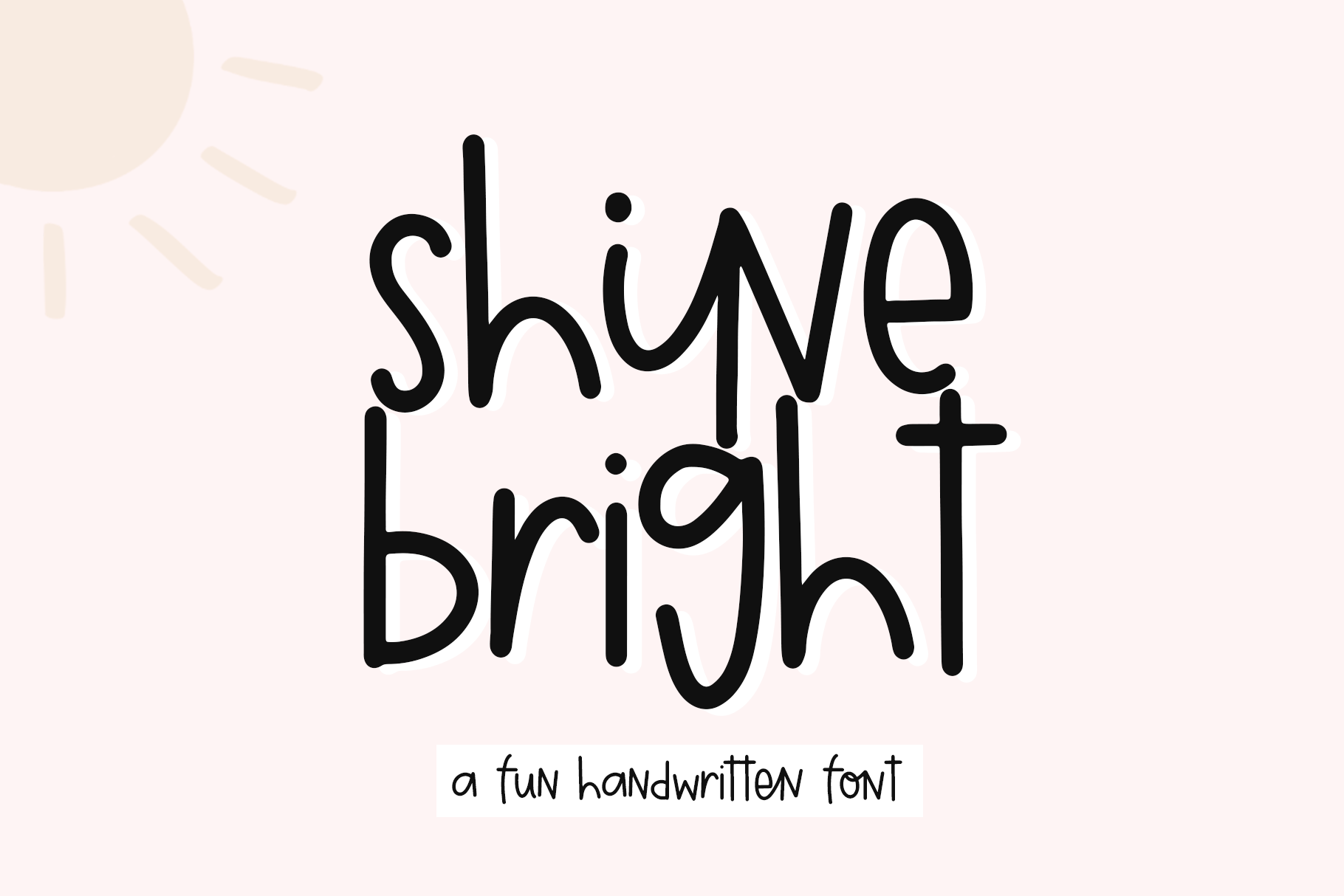
Shine Bright | Fun Handwritten Font
Shine Bright is a fun + quirky handwritten font.
This font is perfect for branding, logos, shirts, svg designs, crafting projects, cricut projects, social media, instagram, web and more!